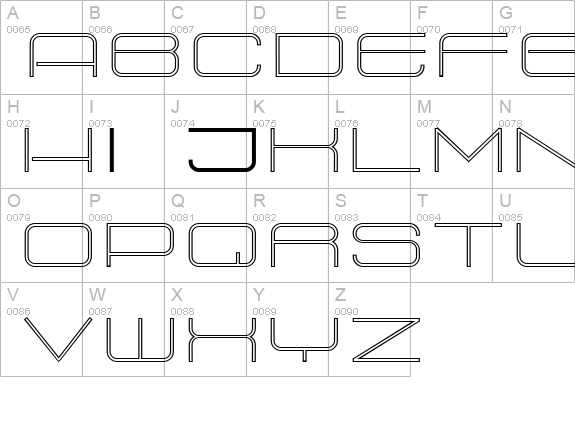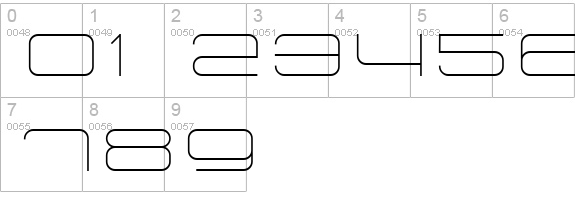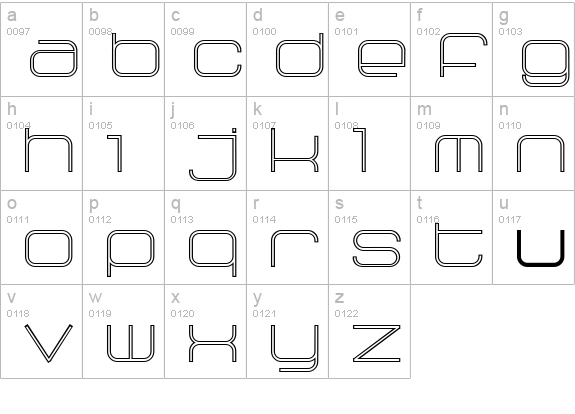
Welcome to Radio 187.5, a font that effortlessly combines elegance with a touch of modernity. This stunning outlined font is sure to captivate and mesmerize your audience, leaving a lasting impression on any project you undertake. Designed with meticulous attention to detail, Radio 187.5 is the perfect choice for those seeking a font that exudes sophistication and style. Its clean lines and delicate outlines make it versatile and adaptable, suiting a wide range of creative endeavors, including logos, headlines, posters, and more. But what truly sets Radio 187.5 apart is its unique ability to evoke a sense of freedom and creativity. With its bold and distinct design, this font encourages you to think outside the box and embrace your artistic instincts. Whether you're a seasoned designer or just starting out, Radio 187.5 is the perfect companion to help you unleash your imagination. And the best part? Radio 187.5 is freely available to download at FontsMarket.com. No need to worry about breaking the bank or compromising on quality. Simply visit FontsMarket.com and discover the freedom of having this exceptional font at your fingertips. So, if you're ready to elevate your designs and make a statement, look no further than Radio 187.5. With its eye-catching outlined font and the freedom it offers, this font is a must-have for any creative professional or enthusiast. Download it now and see the difference it can make in your next project.